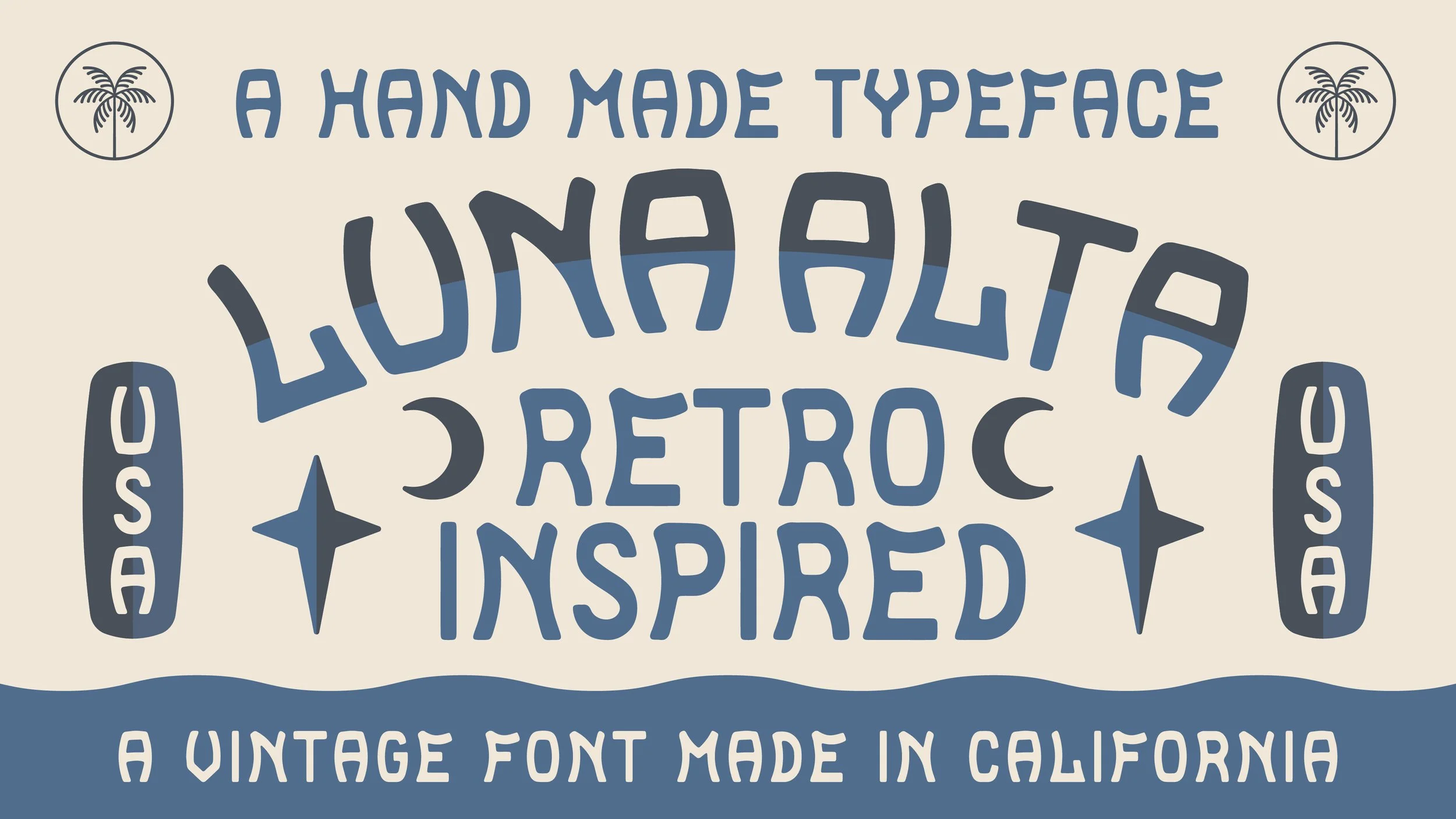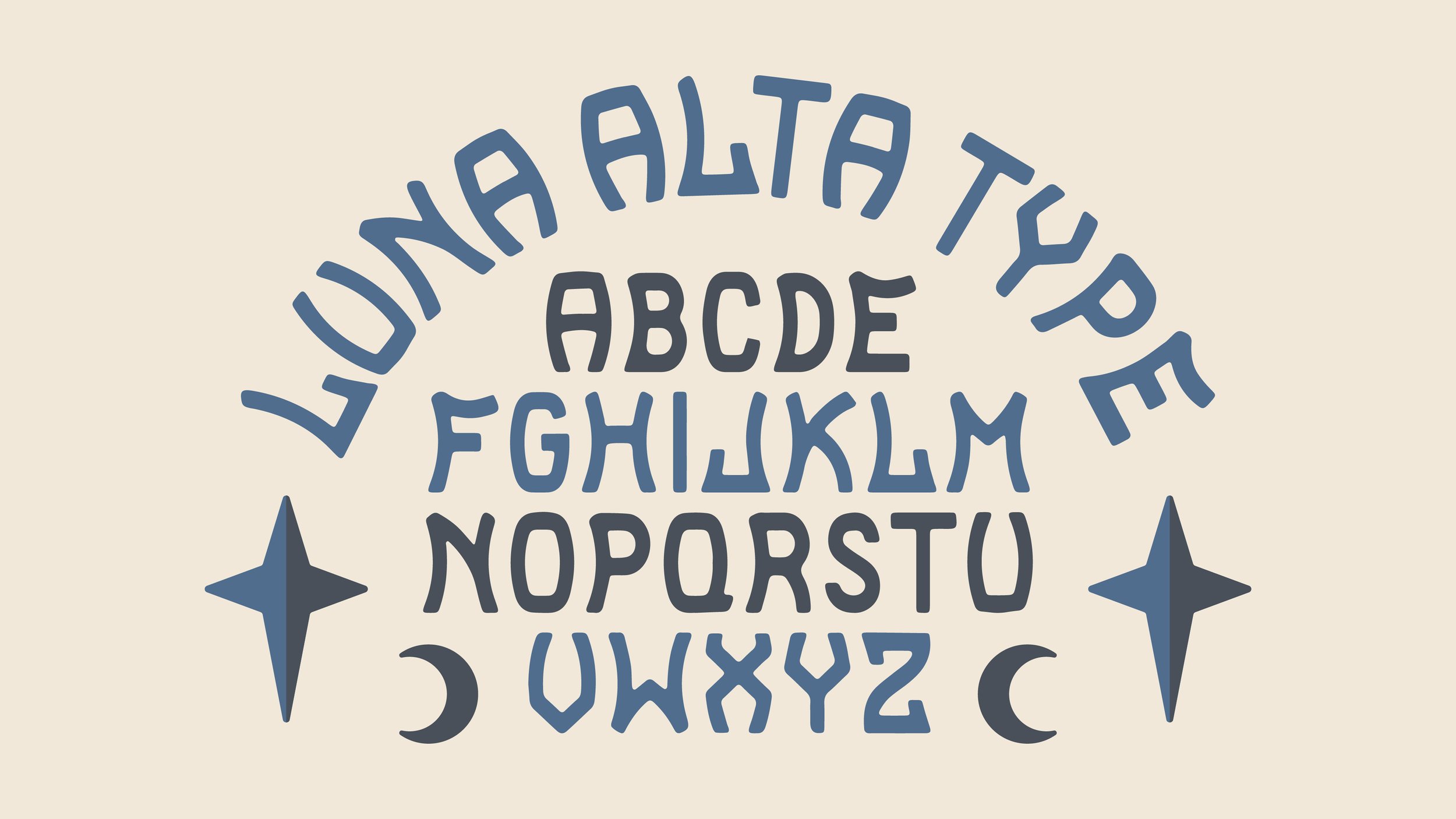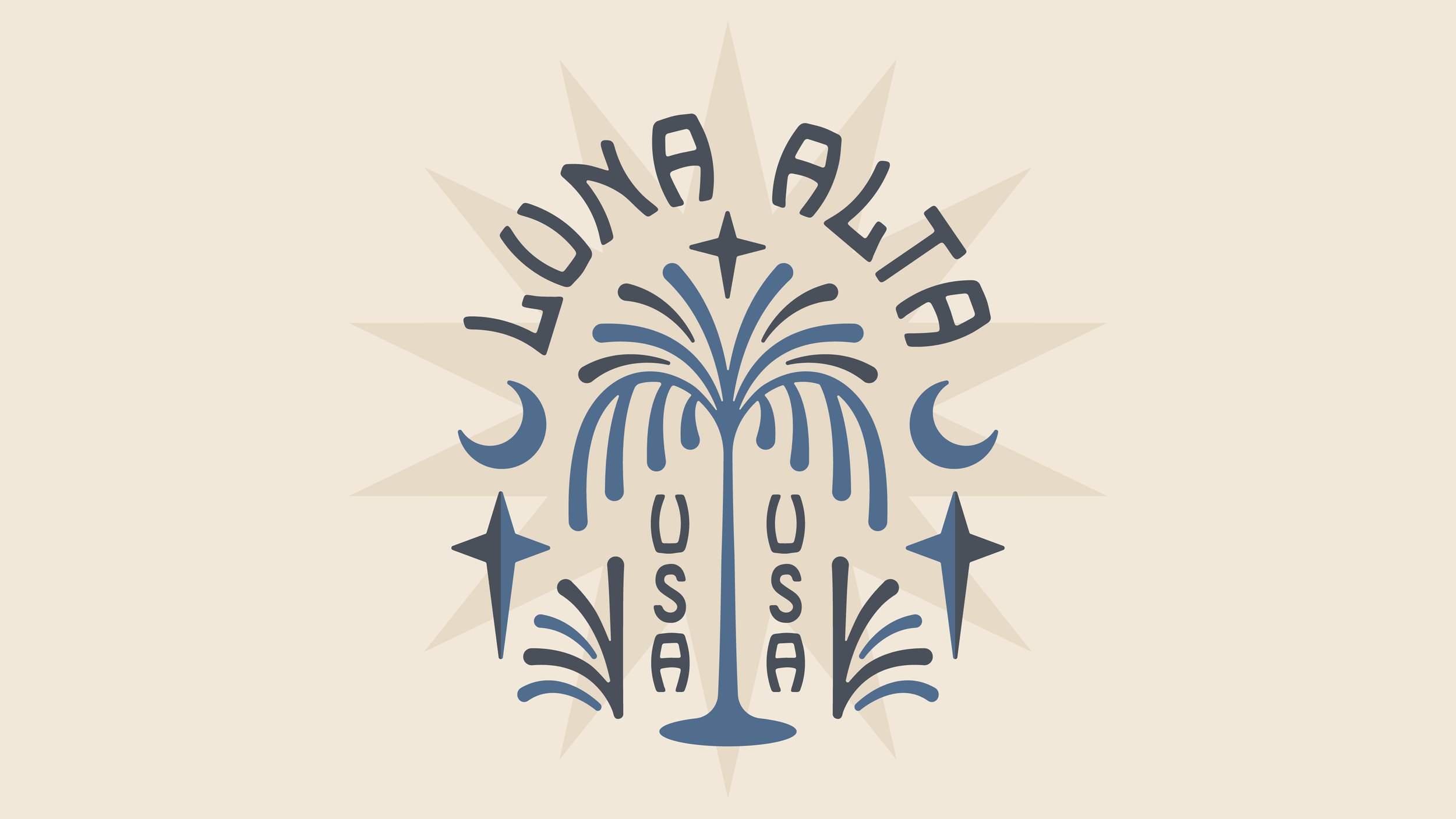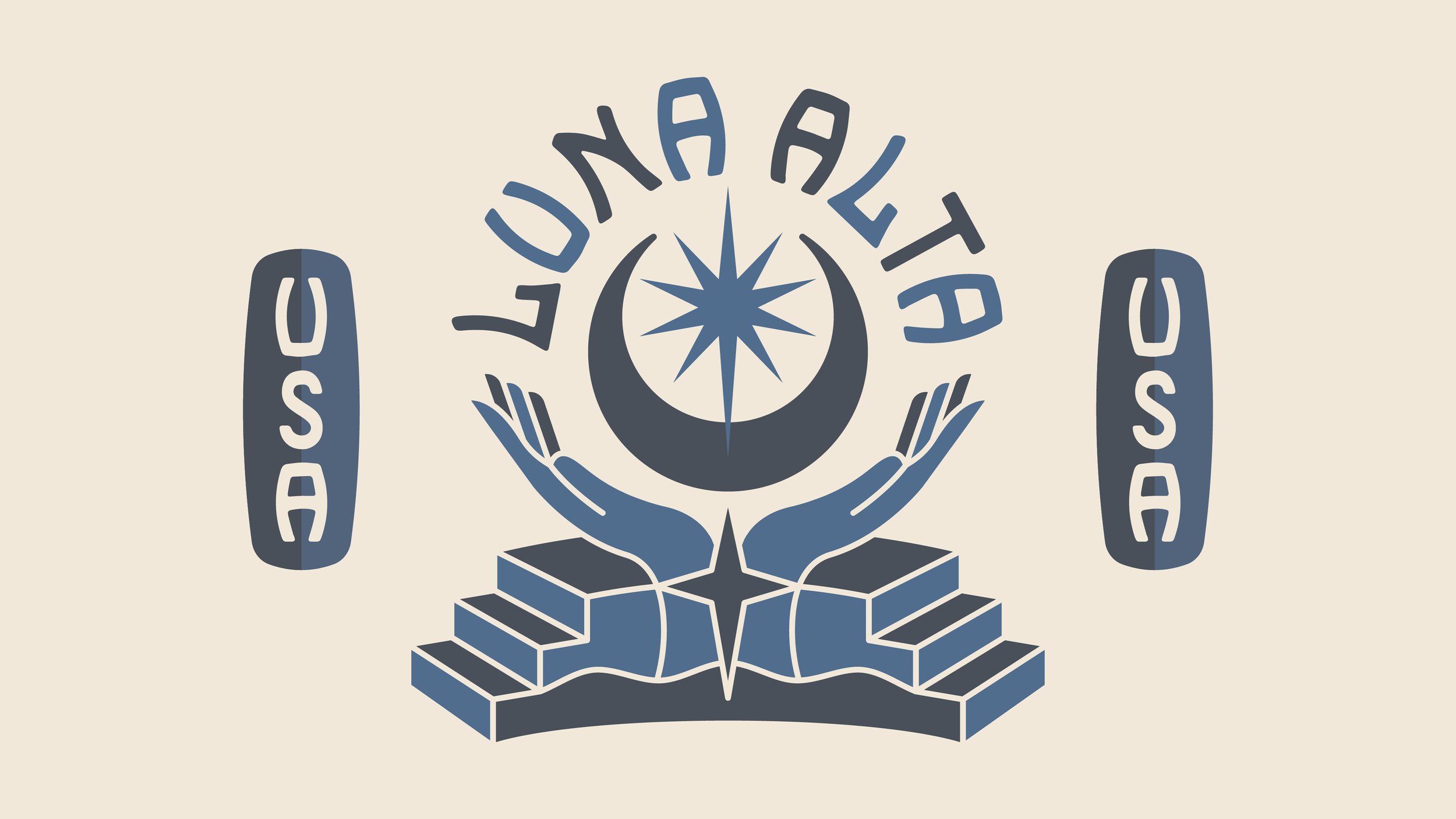
Luna Alta Typeface
The Luna Alta Typeface is a sans serif font featuring funky letter forms inspired by vintage signage. This font includes uppercase letters, numbers, and basic punctuation.